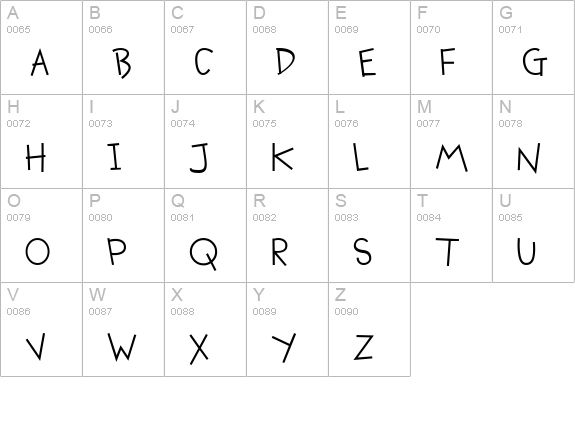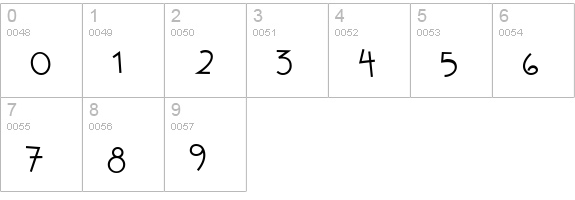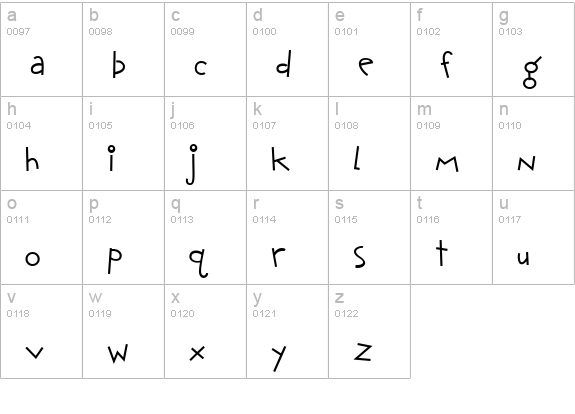
CK Cute Font Details
Introducing CK Cute font, a delightful and playful typeface that exudes charm and whimsy. Perfect for adding a touch of cuteness to your designs, this font is sure to make your projects standout. With its friendly and inviting appearance, CK Cute font is versatile and can be used for a wide range of design projects. The best part? CK Cute font is completely free! You can easily download this charming font at FontsMarket.com and start using it in your projects right away. Whether you're creating greeting cards, posters, social media graphics, or any other design, CK Cute font is the perfect choice to add a fun and cheerful vibe. Don't miss out on this fantastic free font – download CK Cute today and let your creativity shine!